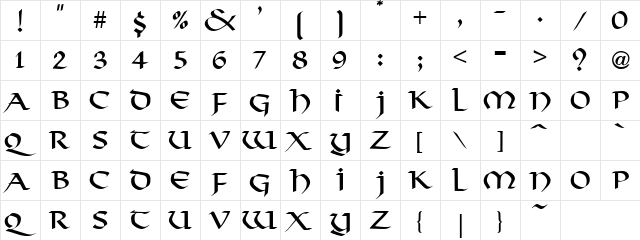
Thief of Baghdad Regular
Design Context for Thief of Baghdad Typeface
Thief of Baghdad takes a measured approach to typography — its balanced proportions and neutral character make it a reliable workhorse for both digital and print work.